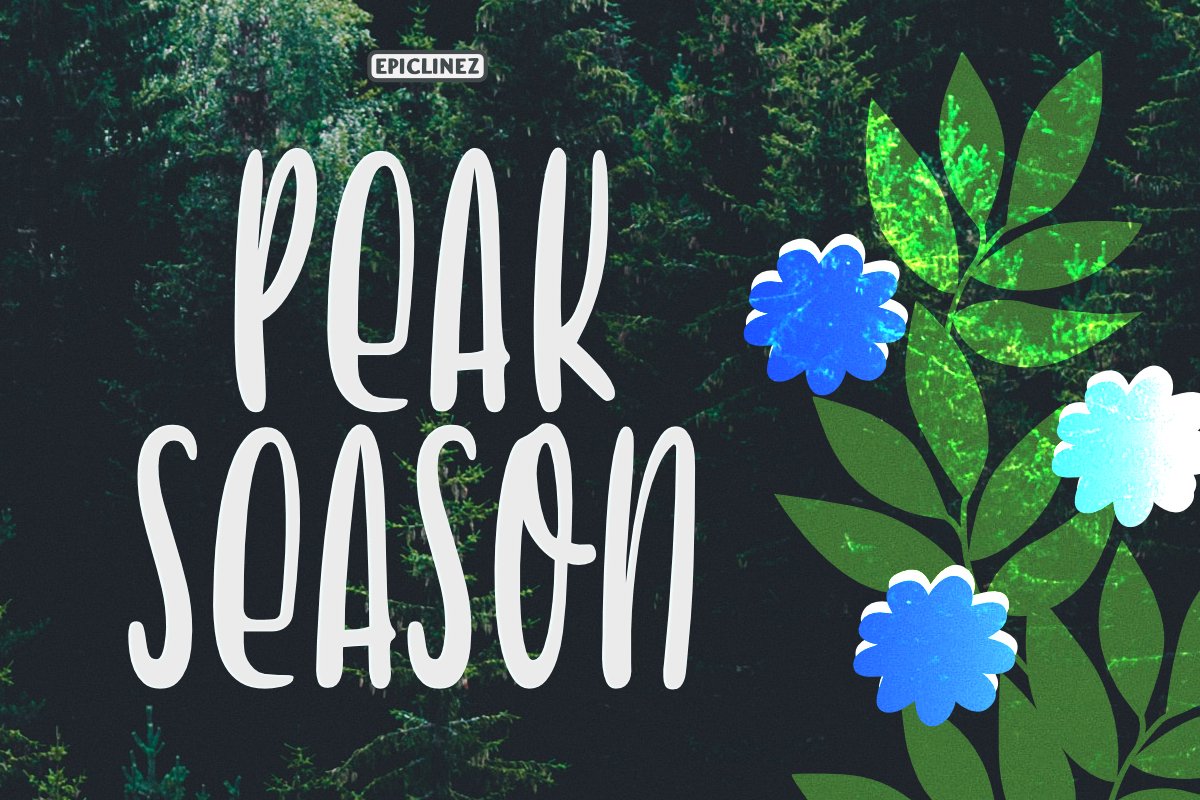
Peak Season - Display Font
Peak Season is a smooth handwritten font. This font is suitable for displays, quotes, apparels and various handcrafting projects.